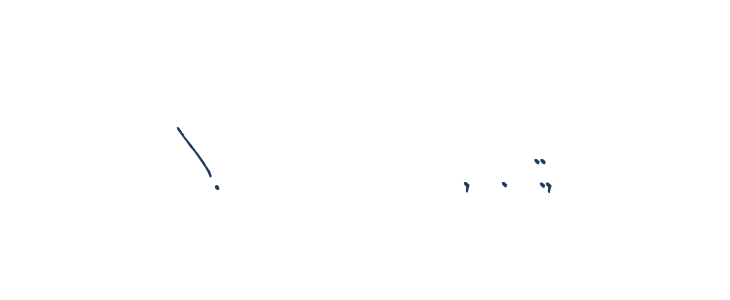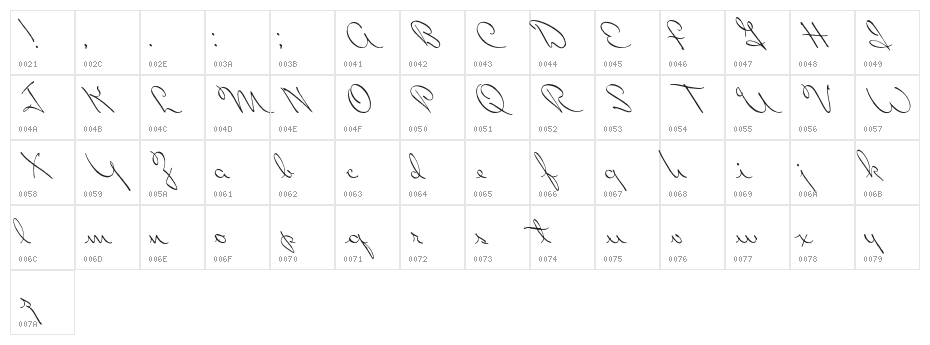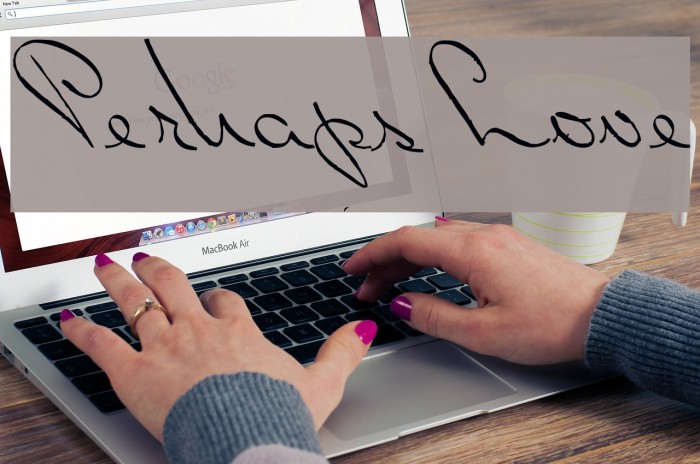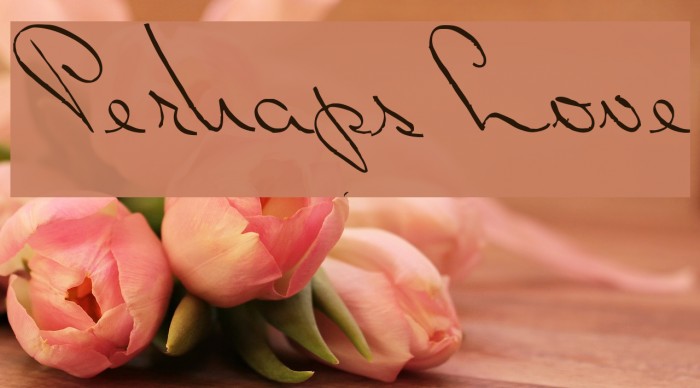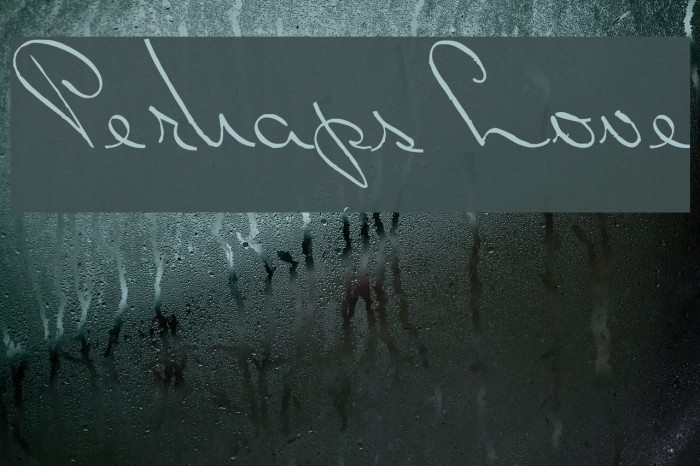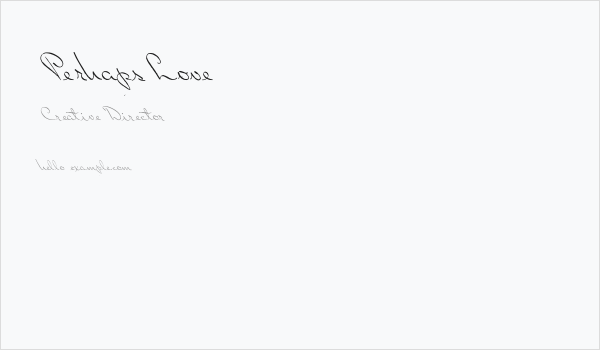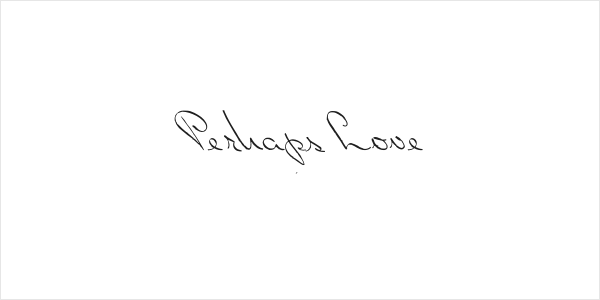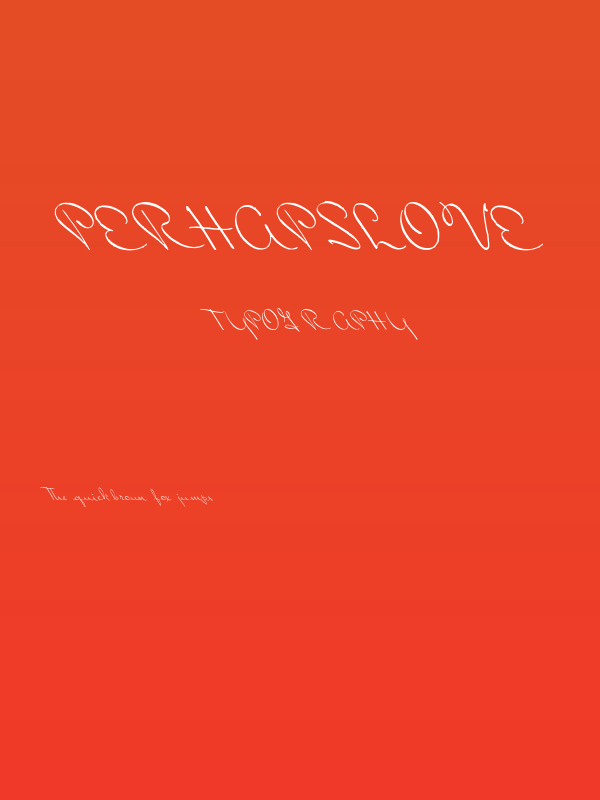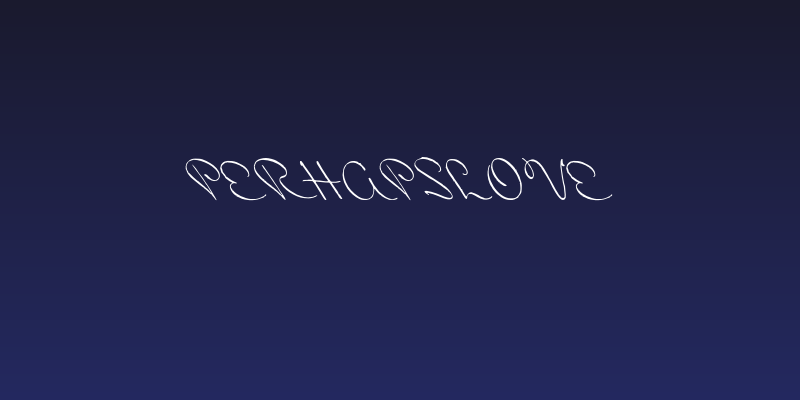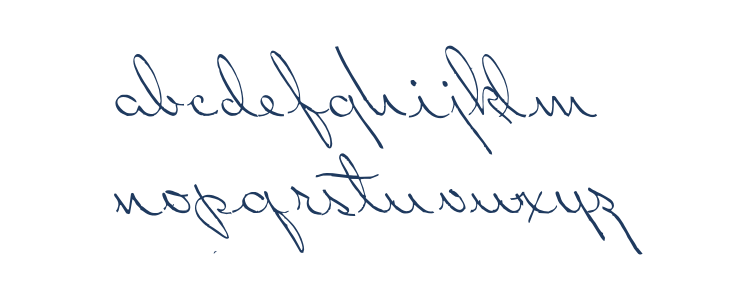
PerhapsLove Font
PerhapsLove Description
This font exhibits a flowing, cursive style with elegant, sweeping lines that connect each letter seamlessly. The uppercase letters are distinguished by their tall, graceful loops and curves, while the lowercase letters maintain a consistent fluidity, enhancing the script's overall harmony. The characters are slightly slanted, adding a dynamic and lively feel to the text. The font's delicate strokes and smooth transitions between thick and thin lines give it a sophisticated and romantic appearance. The special characters are crafted with the same attention to detail, ensuring a cohesive look throughout.
| Overall Style | Romantic |
| Proposed Projects | Ideal for wedding invitations, elegant branding, personal stationery, and romantic quotes. |